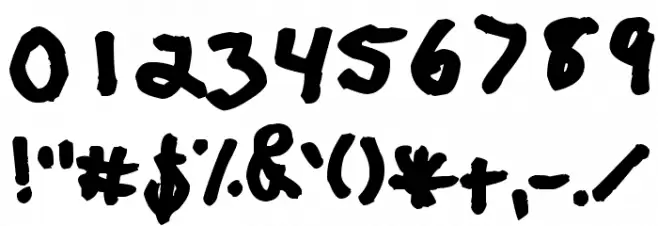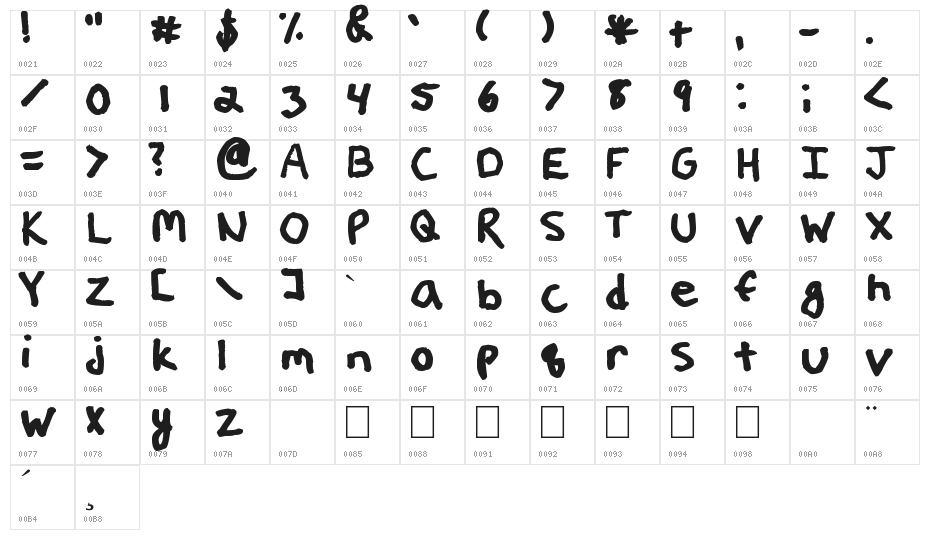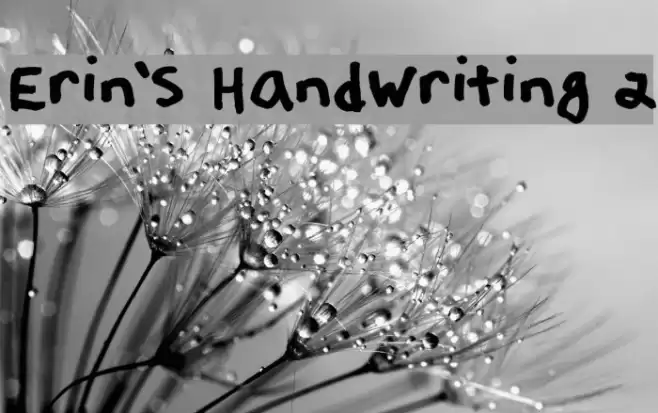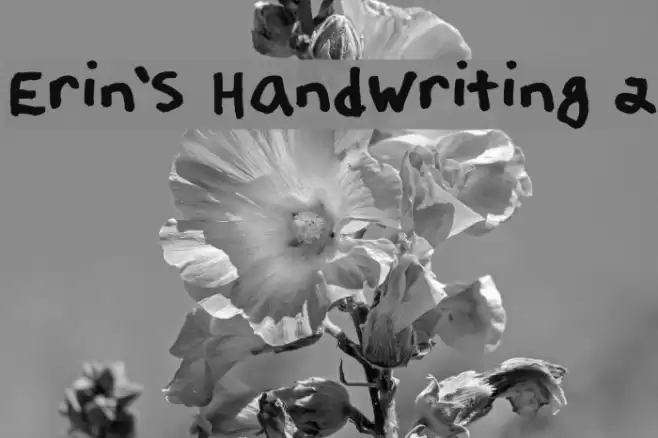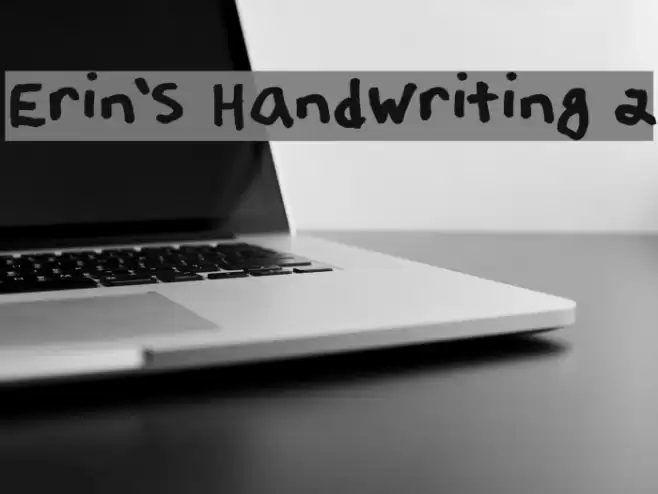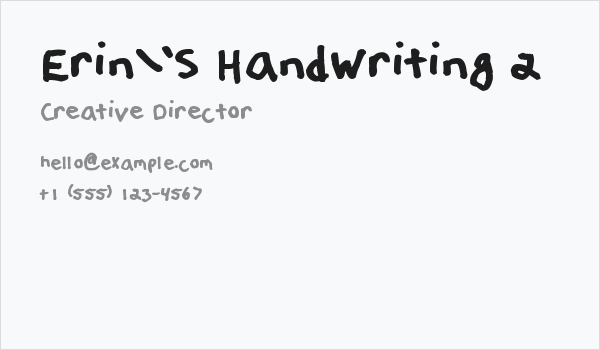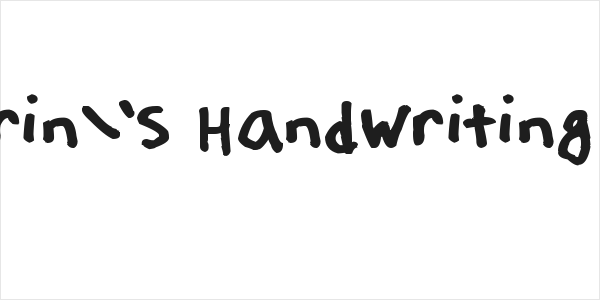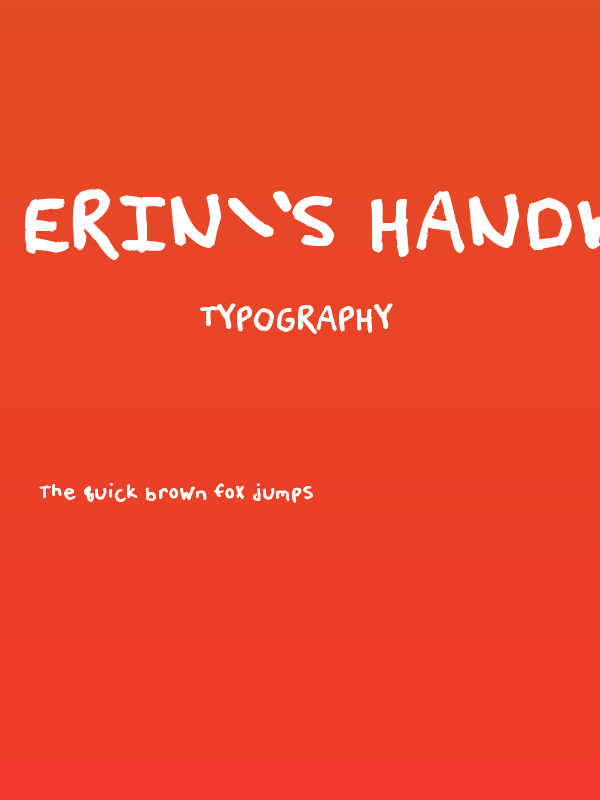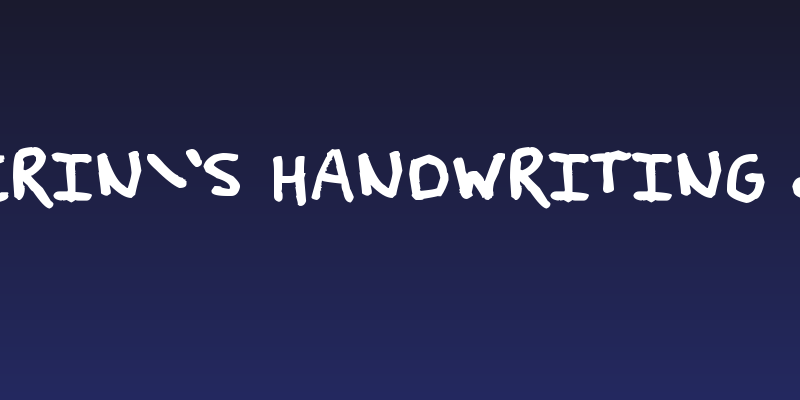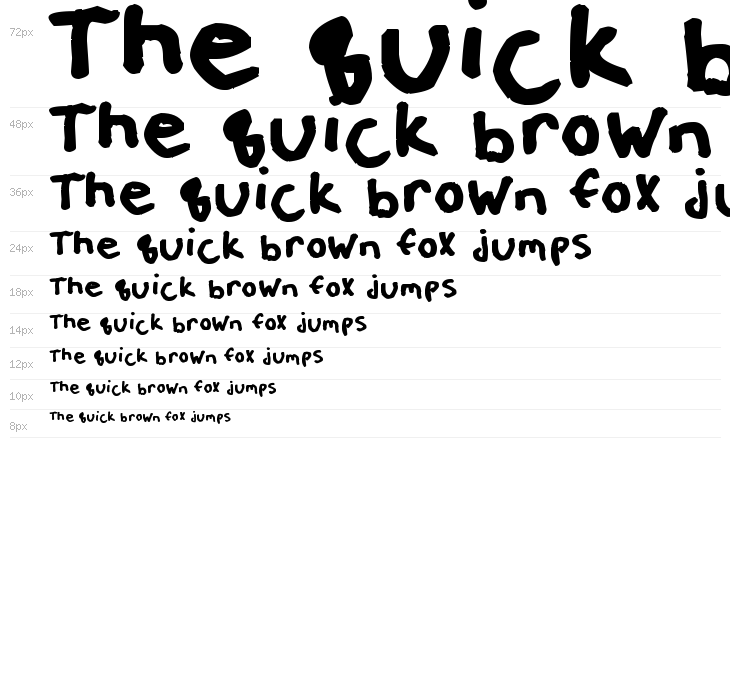
Erin's Handwriting 2 Font
Erin's Handwriting 2 Description
This font exudes a playful and casual vibe, reminiscent of authentic handwriting. The characters are bold and slightly irregular, giving them a personal and approachable feel. The strokes are thick and consistent, creating a strong visual impact. Each letter maintains a unique charm, with rounded edges and a slightly uneven baseline, enhancing the handwritten aesthetic. The numbers and special characters follow the same style, ensuring a cohesive look across all elements. This font is perfect for projects that require a personal touch or a friendly, informal tone.
| Use Case | Headlines, Informal text, Personal projects |
| Proposed Projects | Ideal for greeting cards, personal blogs, children's books, and informal branding. |